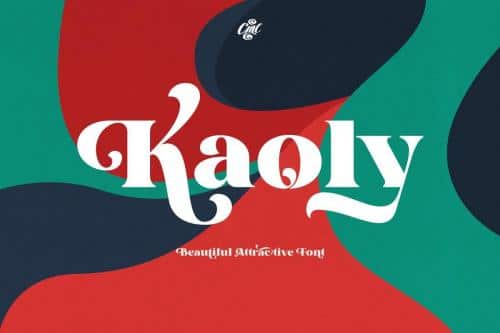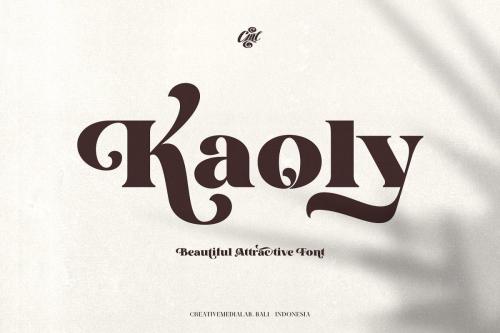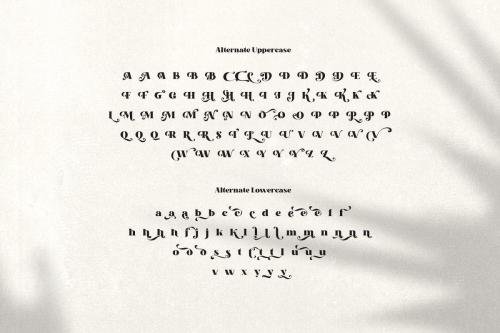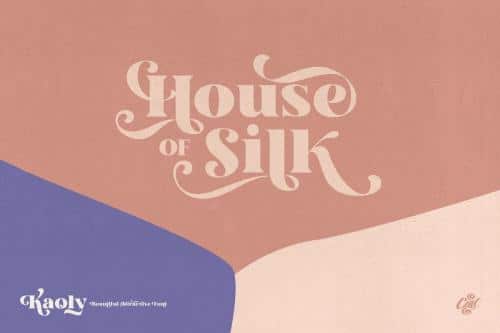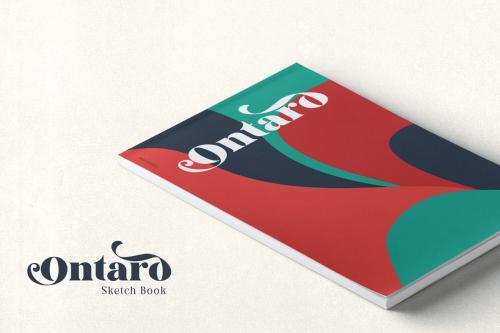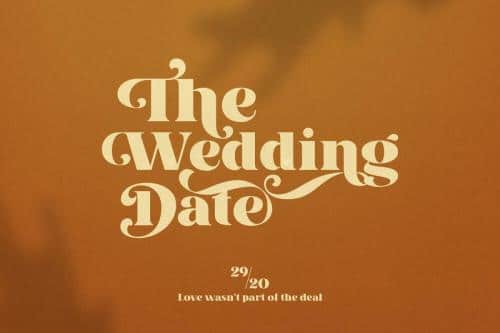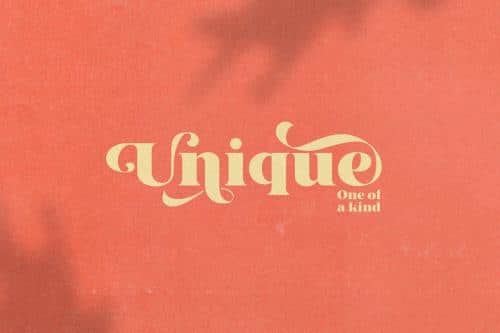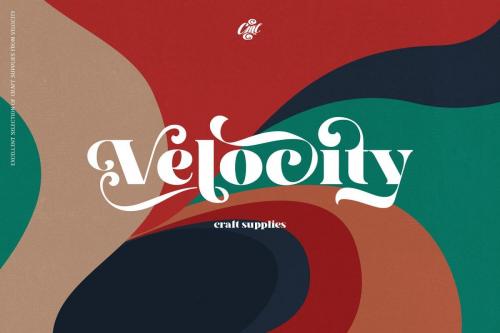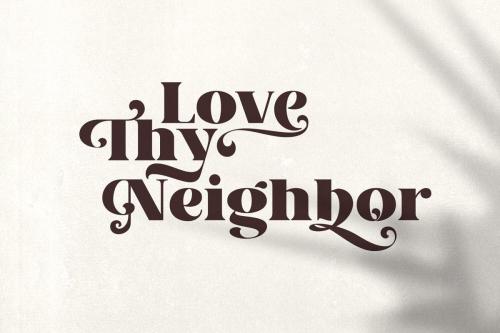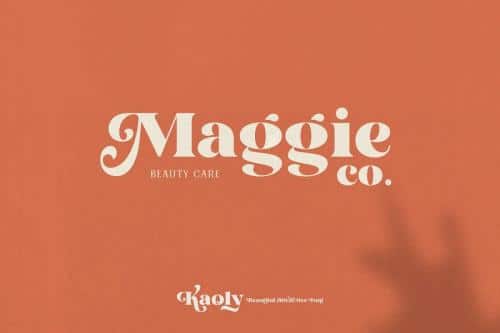
Kaoly Regular Unique bold serif with lot of unique and beautiful alternate characters that you can combine to get a beautiful final lettering with a nice and dynamic shapes just in seconds! Thanks for the unique alternates!
Kaoly Lite This is the lite version of Kaoly Regular, for this style, changes only on uppercase, we also removed the alternative letters to reduce the filesize, it will load much faster your website when you’re using this font for website heading text, products title or using applications that do not support opentype features, it’s very easy to make beautiful words just by typing and tada.. you’re done.
Kaoly will make your work easy and fun.